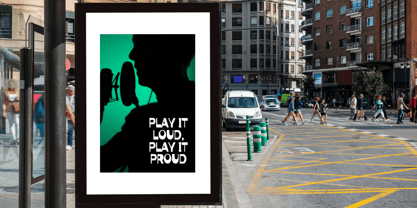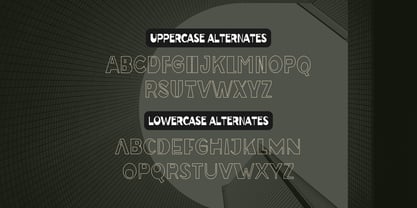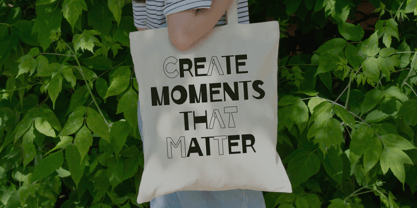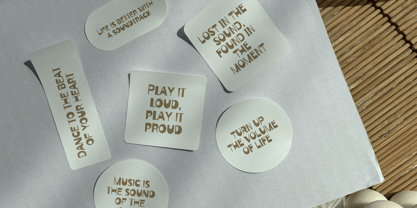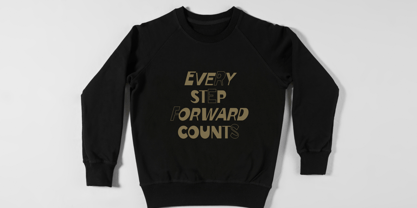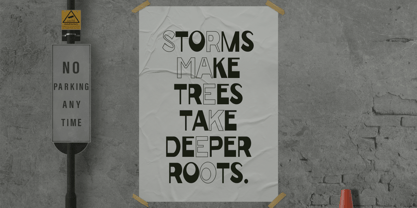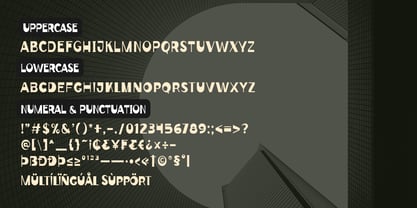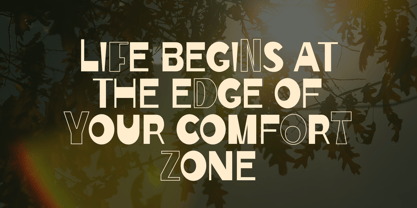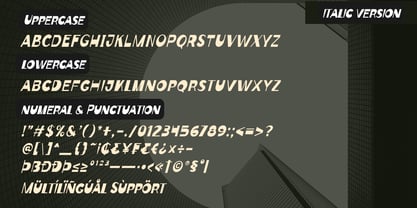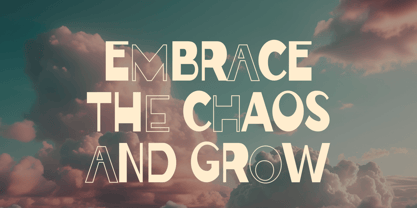
Kopluck Sans
by Sronstudio
The Kopluck Sans Font Family was designed by Muhamad Yusron Billah and published by Sronstudio. Kopluck Sans contains 2 styles and family package options. More about this family
Kopluck Sans is a fun and playful display font that brings energy and creativity to your designs. With its quirky and bold letterforms, this font is perfect for crafting eye-catching headlines, posters, packaging, or any project that needs a lively and cheerful touch. Let Kopluck Sans add a dose of charm and personality to your work!
- Regular & Italic styles
- Alternate letters for added versatility
- Numerals & punctuation
- Multilingual support
Designers: Muhamad Yusron Billah
Foundry: Sronstudio